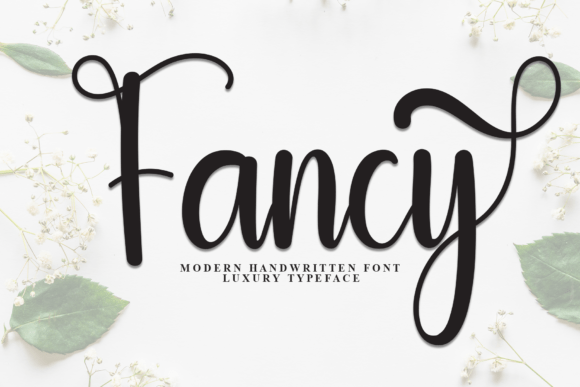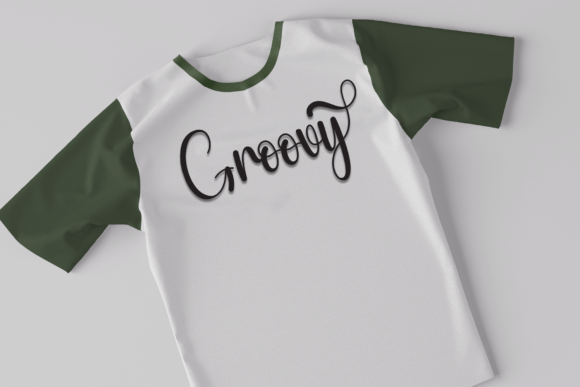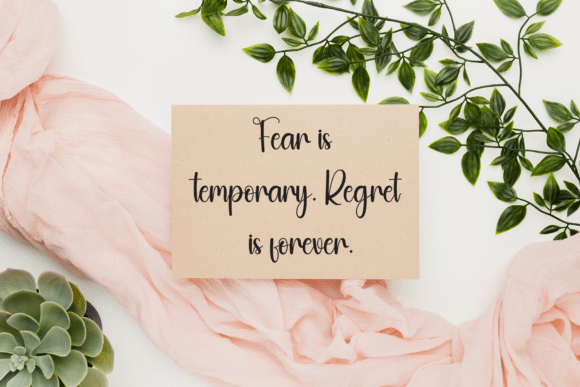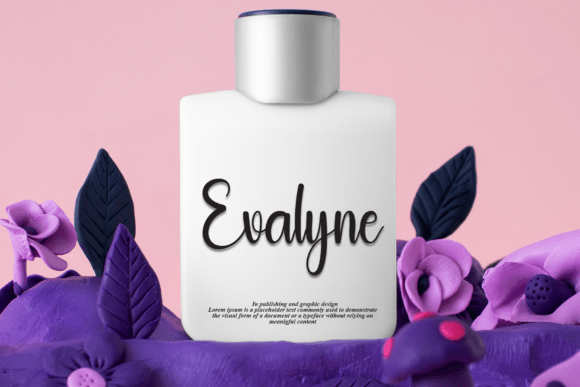
Fancy Font
About the Fancy Font
We are excited to introduce Fancy Font, a must-have typeface for any serious designer. Fancy is a stylish handwritten script font that blends modern elegance with a playful touch. Its fluid strokes and charming curves bring a personal feel to any design. Ideal for logos, packaging, and invitations, this typeface adds warmth, sophistication, and creativity to every project.
Fancy Font’s playful elegance makes it particularly well-suited for branding projects requiring a touch of personality, such as boutique shops, artisanal food products, or wedding stationery. It also excels in short-form applications like logos, headlines, and short quotes on posters or social media graphics. However, its delicate strokes and varying letter widths make it less than ideal for body text or long paragraphs where readability is paramount. Avoid using it in UI design or situations demanding high legibility.
Pairing Fancy Font effectively requires considering its inherent curves. A clean sans-serif like Montserrat or Lato provides a strong, modern counterpoint, balancing the script’s fluidity. For a more traditional feel, a serif typeface such as Playfair Display or Merriweather can create a classic yet approachable aesthetic.
The overall personality of Fancy Font is best described as sophisticated yet approachable; it’s elegant but not overly formal, conveying a sense of friendly charm and warmth. This makes it an excellent choice for brands aiming for a balance between sophistication and approachability.